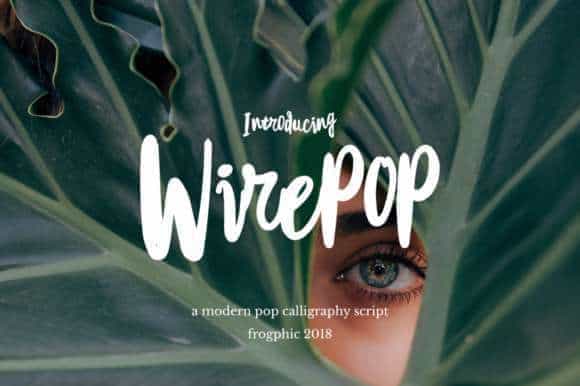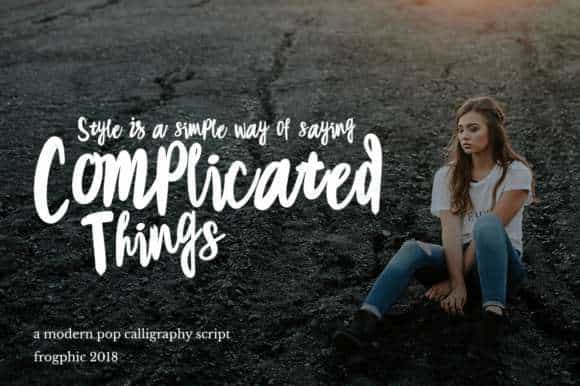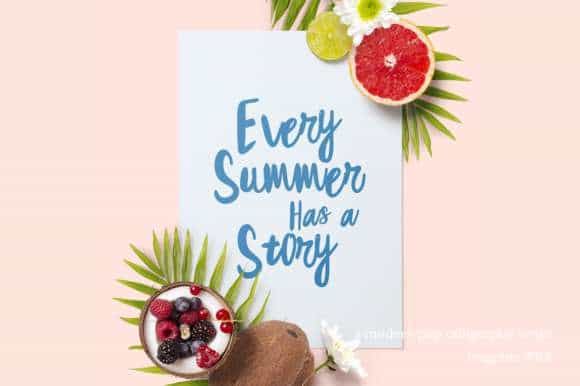
Wirepop is a new pop alphabet typography, reminiscent of handwritten fonts. Wirepop has a high level of visual identity, it is rather bold and stylish, while it has an elegant and natural look, as well as a rather funky one. Wirepop can be used perfectly for different projects such as: business cards & letterheads, power point templates, memorial services, birthday invitations & ideas, greeting cards & messages, newsletter, social media posts, online/ print ads, product packaging & labels, and more.